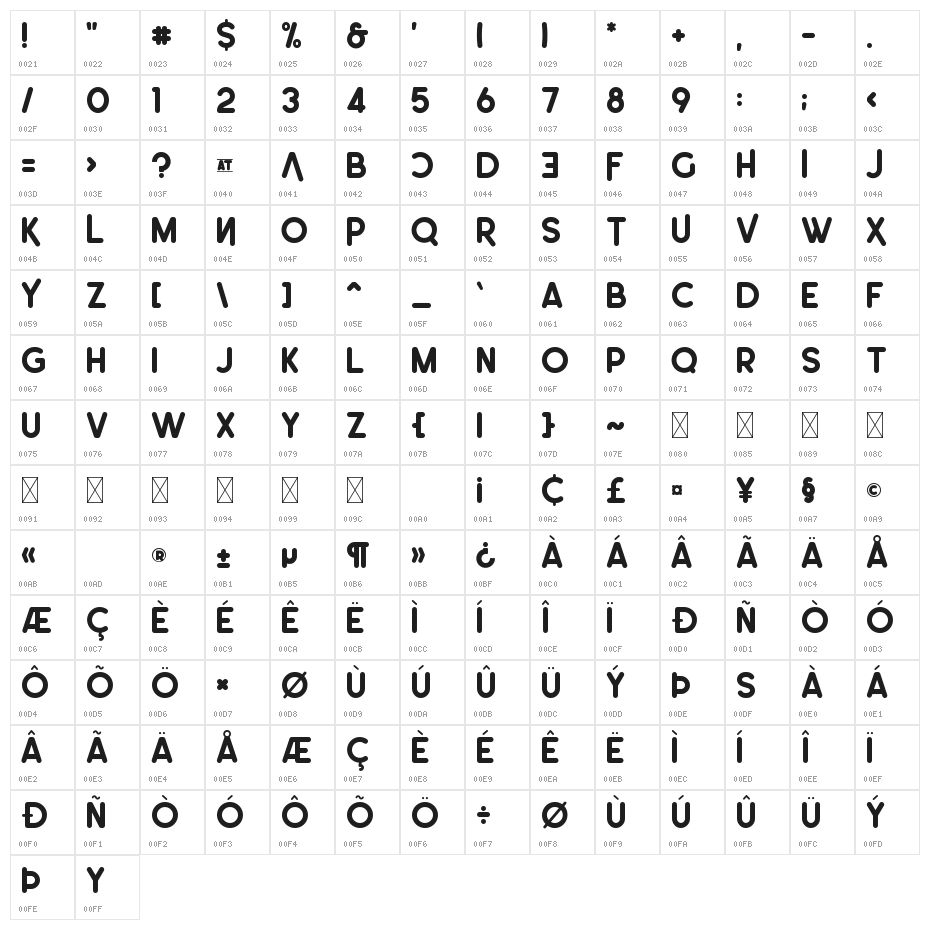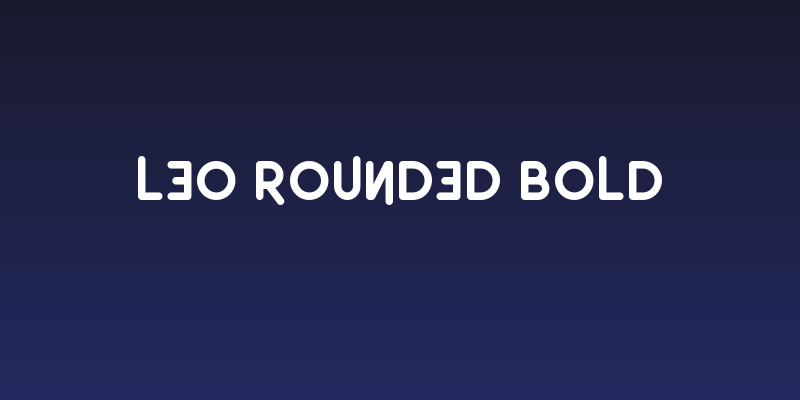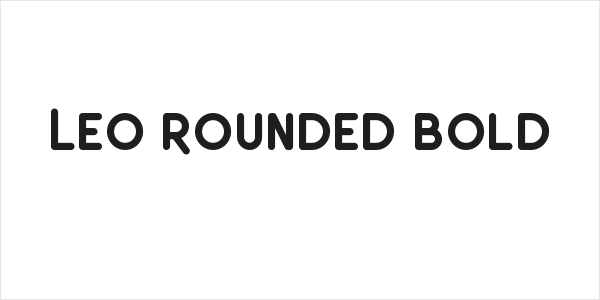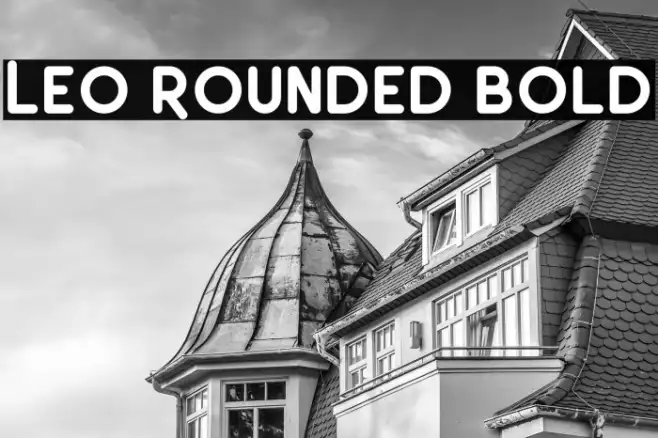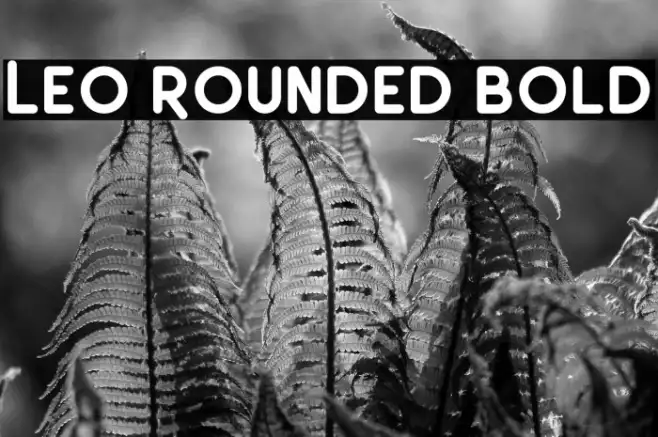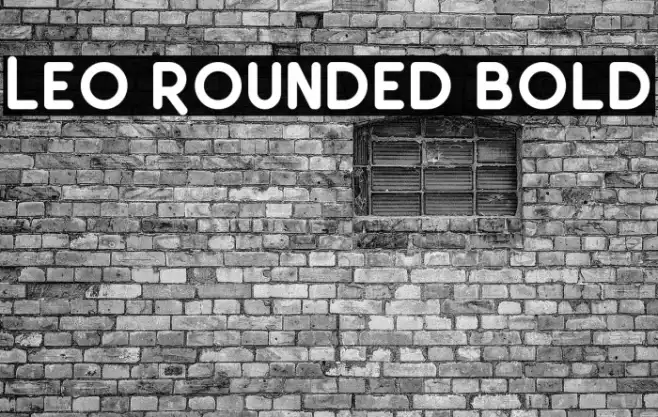
Leo Rounded Bold Font
Leo Rounded Bold Description
This font features a bold and rounded design that exudes a friendly and approachable vibe. The characters are uniformly thick, with smooth curves and a consistent stroke width, giving it a modern and clean appearance. The rounded edges soften the overall look, making it suitable for a variety of applications where a welcoming and informal tone is desired. The numerals and special characters maintain the same rounded style, ensuring visual harmony across all elements. This font's simplicity and clarity make it highly legible, even at smaller sizes.
| Use Case | Headlines, Logos, Signage |
| Proposed Projects | Ideal for branding, children's books, signage, and digital interfaces where a friendly and approachable look is needed. |